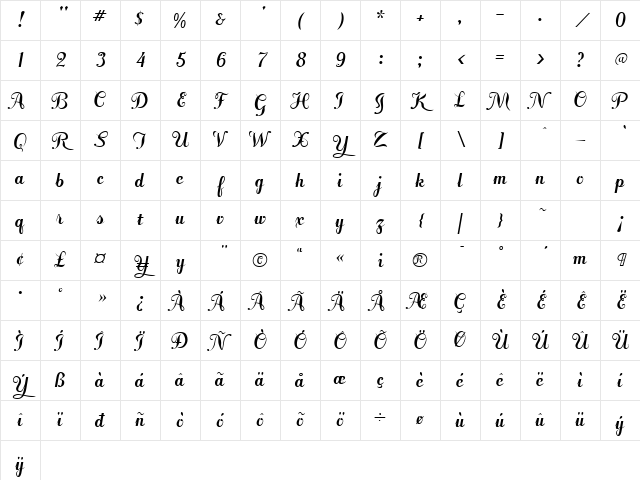
FansiPensleTwo Bold
Design Context for FansiPensleTwo
FansiPensleTwo is a composed and adaptable typeface that performs quietly and consistently across a wide range of design contexts. Its bold stroke weight gives it real presence on the page.